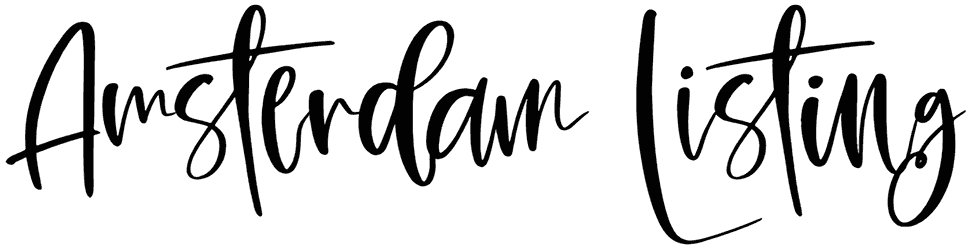
Amsterdam Listing Font
Here we come again with a cursive script font, such as the Amsterdam Listing, that comes with two distinctive styles and lets you add a bit of variety to all of your creative ideas.
This handwritten font has crooked and rounded characters; thus, it can bring a vibe of uniqueness, jauntiness, vitality, or vivacity to your projects. We would like to advise you to include this font in your illustrations, book covers, stickers, digital banners, or social media posts.